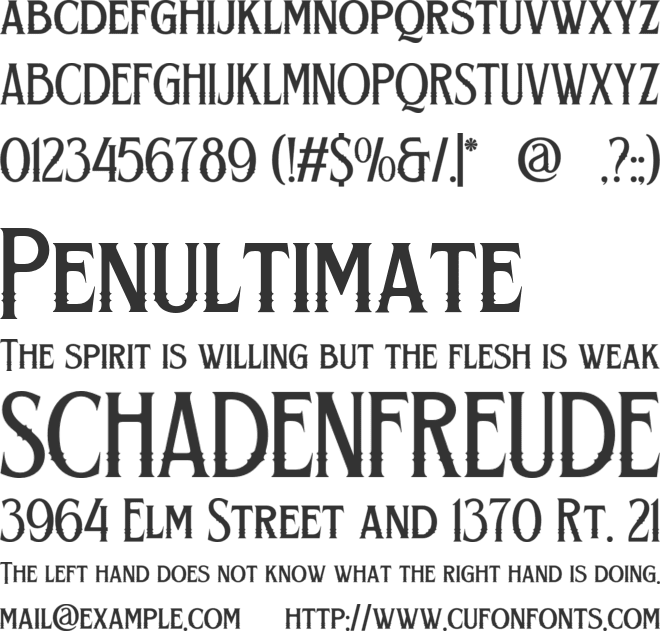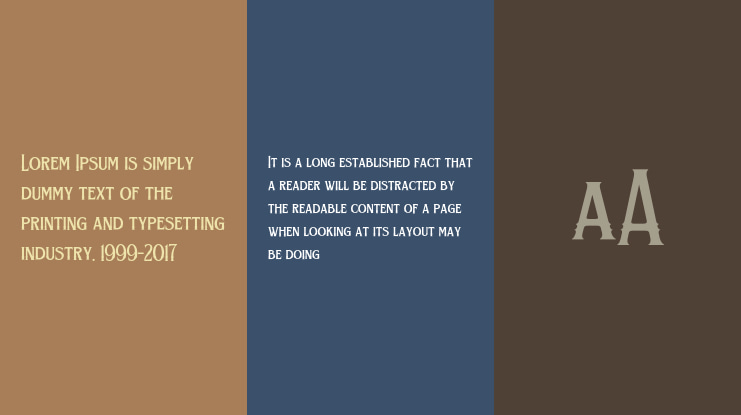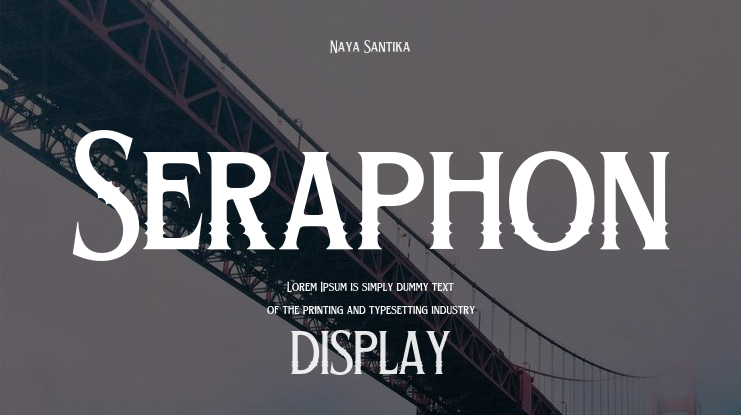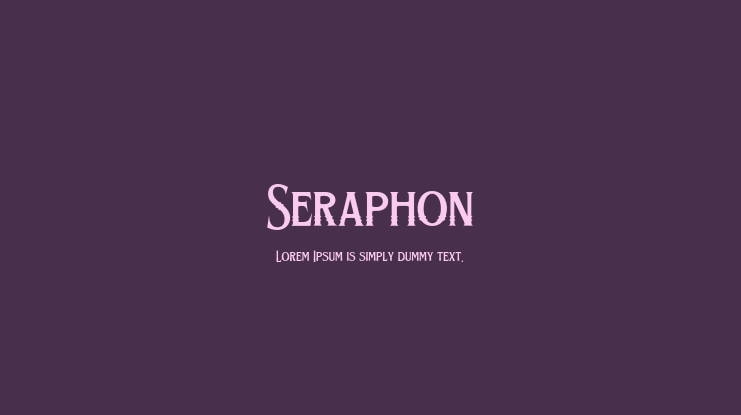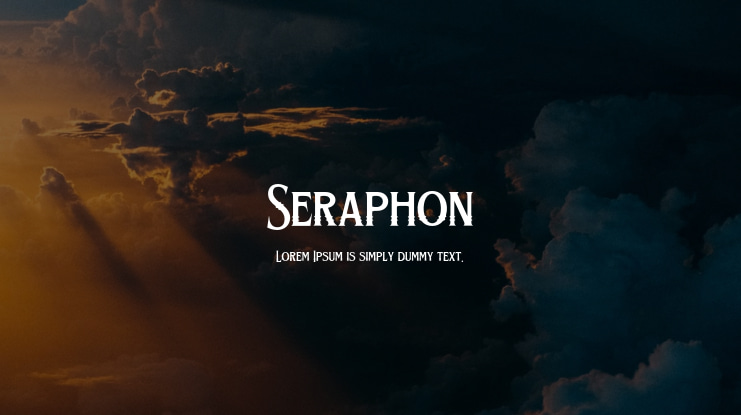
Seraphon Font
Unleash your inner dragon master with "Seraphone"! Drawing inspiration from the strength, bravery, and mystique of dragons, this font is intricately crafted with stunning details that capture the grandeur and might of these mythical creatures. Its sharp contours and majestic style imbue text with a touch of enchantment, while the inclusion of dragon elements on each letter adds an extra layer of intricacy. Ideal for enhancing game titles, movie poster titles, fantasy novel covers, and other designs centered around dragon themes, this font weaves a tale of courage and power through every character. Let the letters of "Seraphone" breathe life into stories of dragons and inspire you to embrace your own inner strength!
Burntilldead - Illustrator and Typefoundry